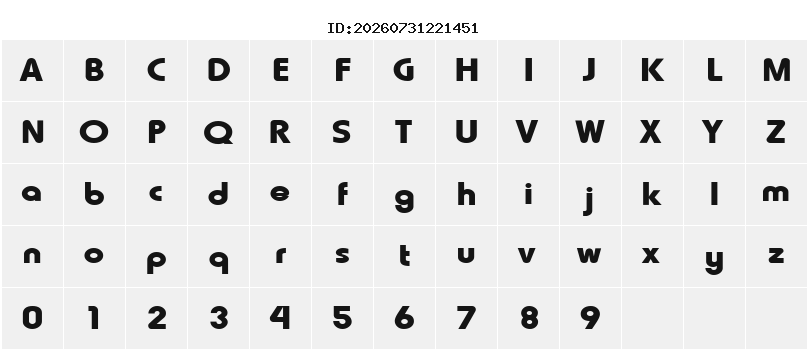
Lauren-Extended Preview
• Font Name: Lauren-Extended
• Full Font Name: Lauren-Extended Bold
About Lauren-Extended.ttf
Lauren-Extended.ttf is a modern, elegant sans-serif font designed for ultimate readability and visual harmony. Perfect for branding, headlines, web design, and print materials.